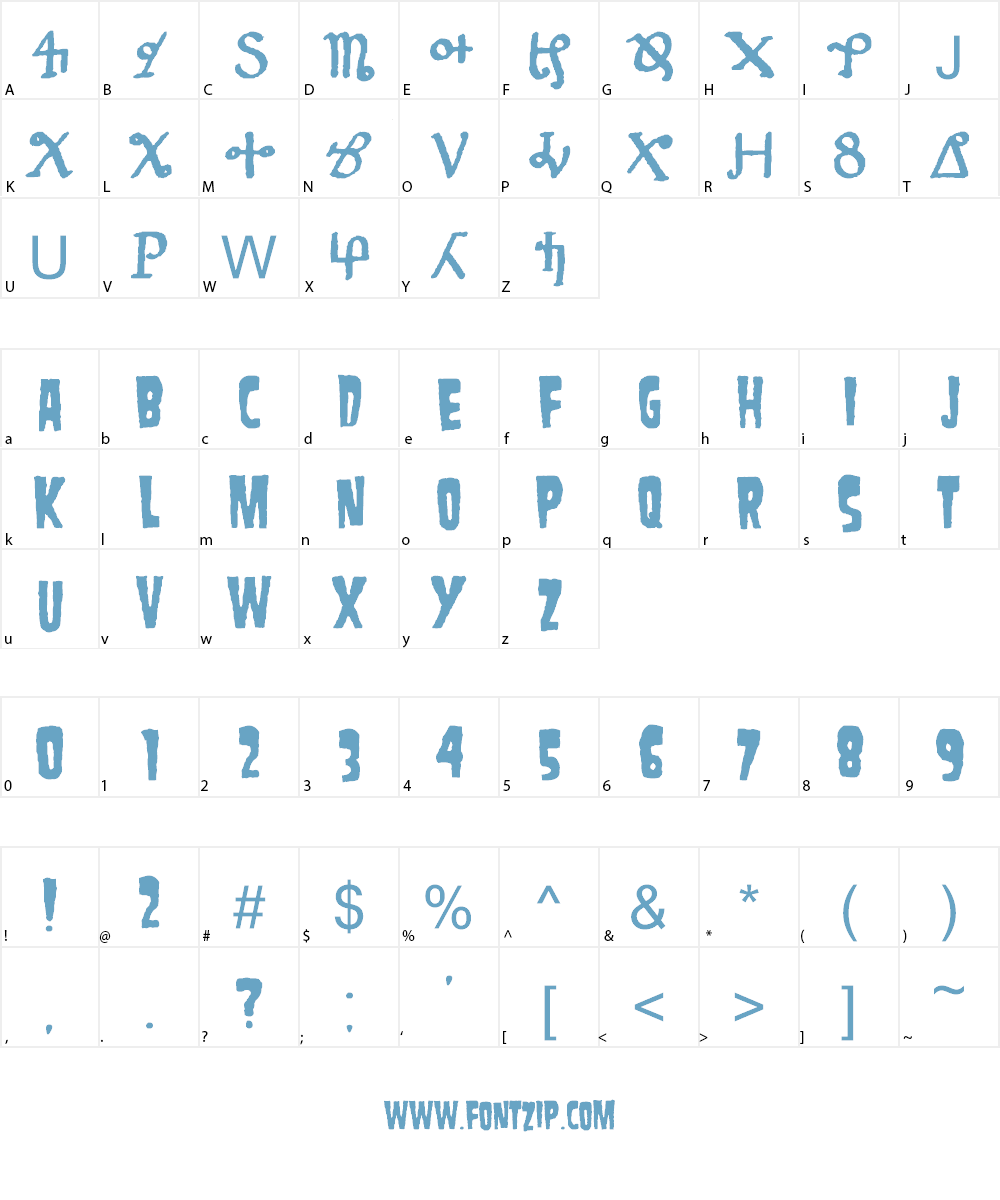
This is the improved version of the original Danzig font I created. It uses letters from the original font designed from the Giant Gilla Monster movie poster as well as the Danzig/Samhain logos, the capital letters are the symbols used on Danzig's 4p album. New improvements also include numbers and a Danzig skull used for all undefined symbols.